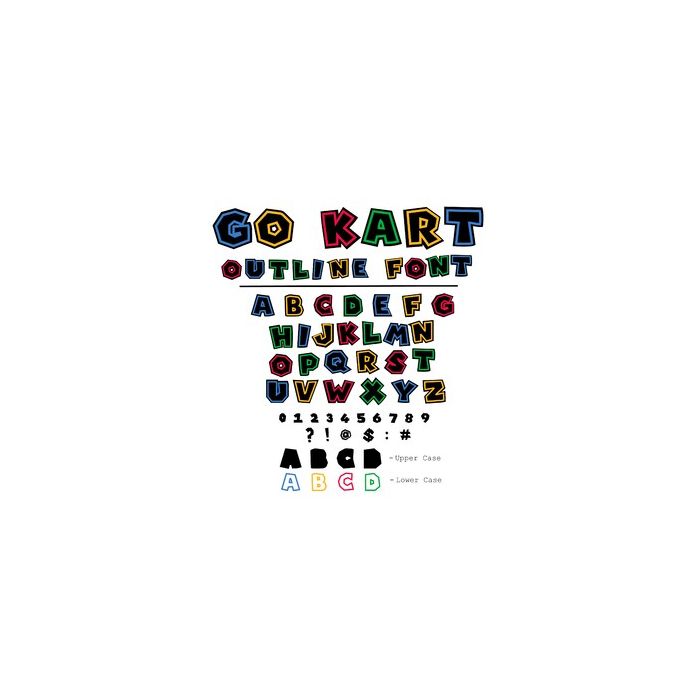
Go Kart Outline Font
Go Kart Outline Layered Font - Uppercase is the bottom mat layer and lowercase is the regular text for the top. Includes numbers and punctuation.